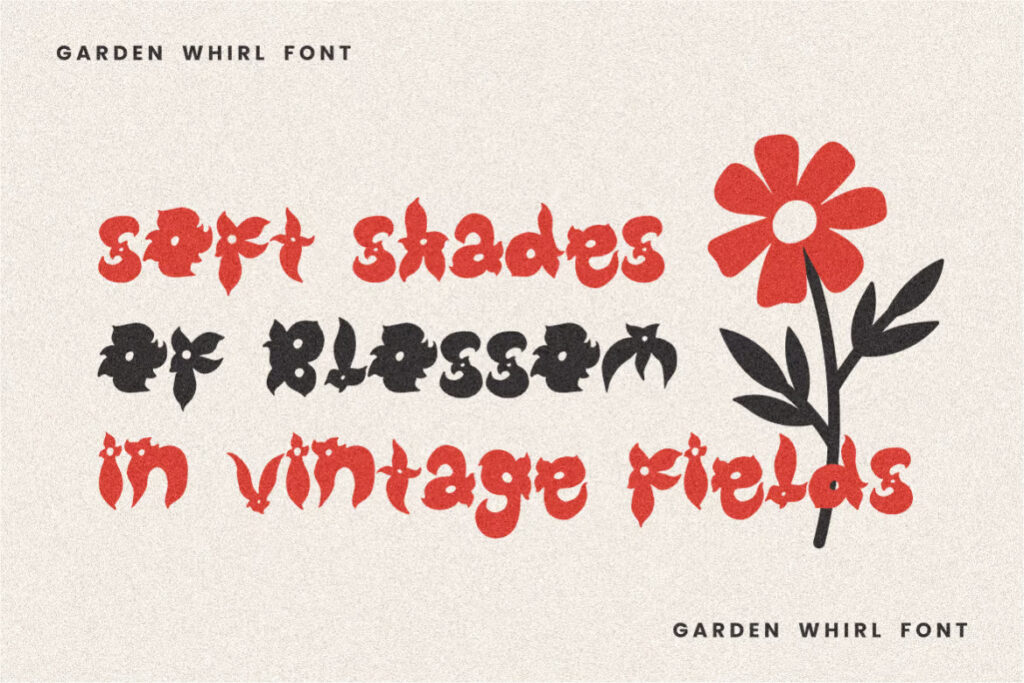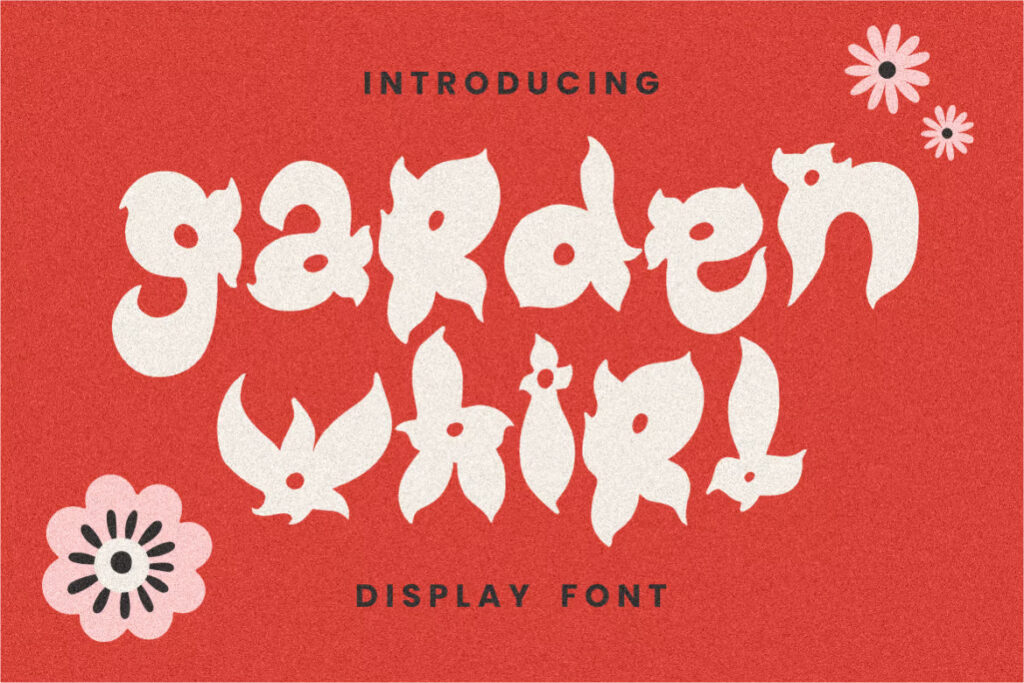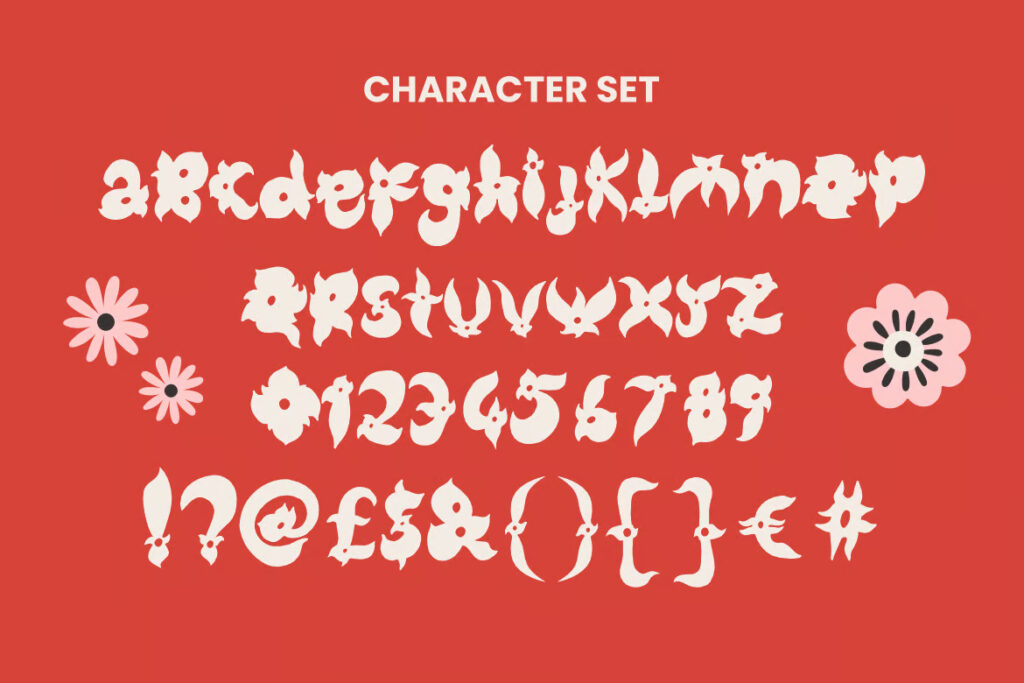
arden Whirl is a delightful display font that brings a fresh splash of creativity to your designs, blooming with unique floral shapes and natural charm. Inspired by the whimsical beauty of nature, each character is adorned with intricately crafted petals and organic curves that seamlessly blend into its letterforms. This artistic fusion of floral elements and typography gives Garden Whirl its distinctive, playful aesthetic—making it a standout choice for designers who want to add a vintage-inspired, yet vibrant flair to their visual projects. Its irregular yet harmonious forms bring character and elegance, offering a perfect balance between charm and originality.
Ideal for a wide variety of creative applications, Garden Whirl is well-suited for logos, branding, posters, invitations, packaging, book covers, and editorial titles. Its decorative appeal and versatility ensure it draws attention wherever it’s used, infusing every design with a sense of playful sophistication. Whether you’re designing personalized greeting cards, stylish product labels, or eye-catching magazine headers, Garden Whirl ensures your work blossoms with personality.
Garden Whirl Display Decorative Font